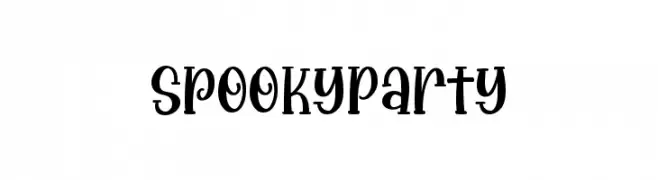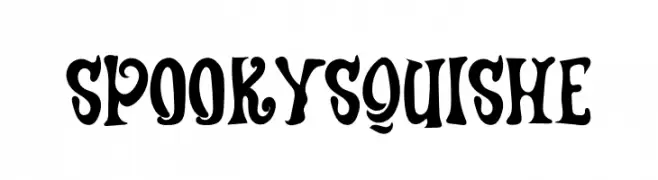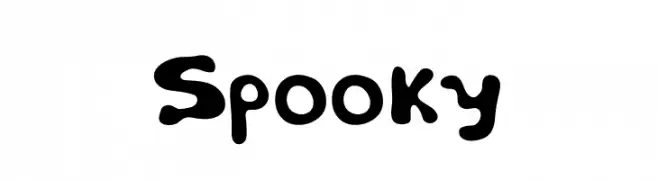
A bold, dripping font with a spooky Halloween theme.
A spooky, dripping font perfect for Halloween themes.
A playful, spooky handwritten font ideal for Halloween themes.
A bold, jagged font with a spooky, horror-themed design.
A bold, playful font with a spooky, dripping effect ideal for horror themes.
A bold, distressed font with a spooky, hand-drawn style.
A bold, bone-themed font ideal for spooky or Halloween projects.
A playful, bone-themed font perfect for spooky or fun designs.
A bone-themed decorative font perfect for spooky designs.
A bold, dripping font with a spooky, horror-themed design.
A spooky, dripping font perfect for horror themes.
A bold, playful font with rounded, hand-drawn characters.
A playful, spooky font with quirky, irregular letterforms and Halloween motifs.
A playful, bone-themed decorative font ideal for spooky designs.
A bone-themed decorative font perfect for spooky designs.
A playful, eerie font with irregular, hand-drawn letters and a spooky vibe.
A spooky, dripping font perfect for horror themes.
A spooky, dripping font perfect for Halloween themes.
A bold, retro font with a pixelated, dripping style ideal for spooky themes.
A playful, spooky font with bold, irregular lines and a hand-drawn feel.
A playful, bold font with a whimsical 'hole' pattern in each character.
A playful, bold, and hand-drawn font with rounded, irregular characters.
A bold, bone-themed decorative font perfect for spooky designs.
A spooky, decorative font with jagged, dripping edges, perfect for Halloween themes.
A bold, playful font with a spooky, distressed appearance.
A bold, jagged font with a spooky, haunted theme.
A spooky, dripping font with a hand-drawn, horror-inspired style.
A playful, spooky font with monster-like characteristics and skull motifs.
A spooky, irregular font with a dripping, eerie aesthetic.
A spooky, decorative font with a Halloween theme, featuring circular saw borders and crow accents.
A spooky, dripping font ideal for Halloween themes.
A bold, brush-style font with dynamic, hand-painted strokes.